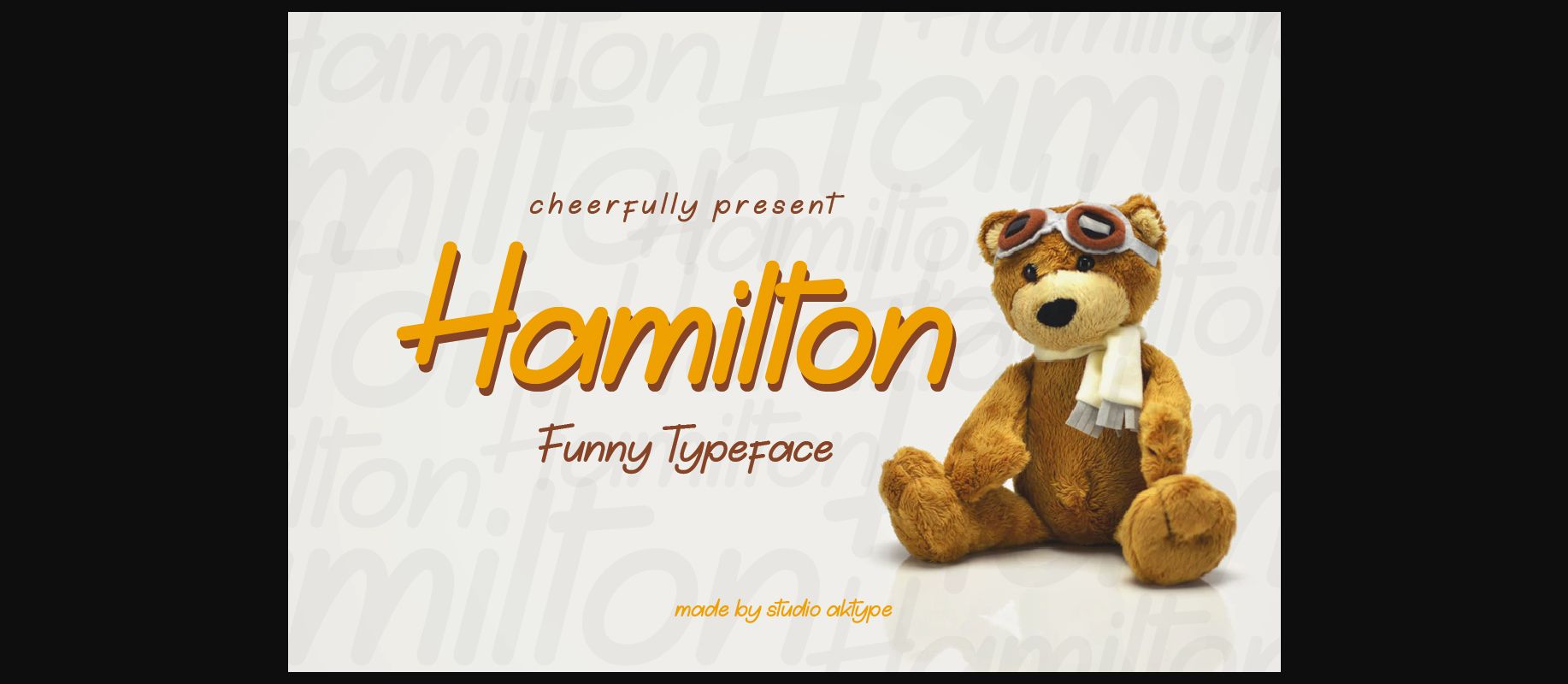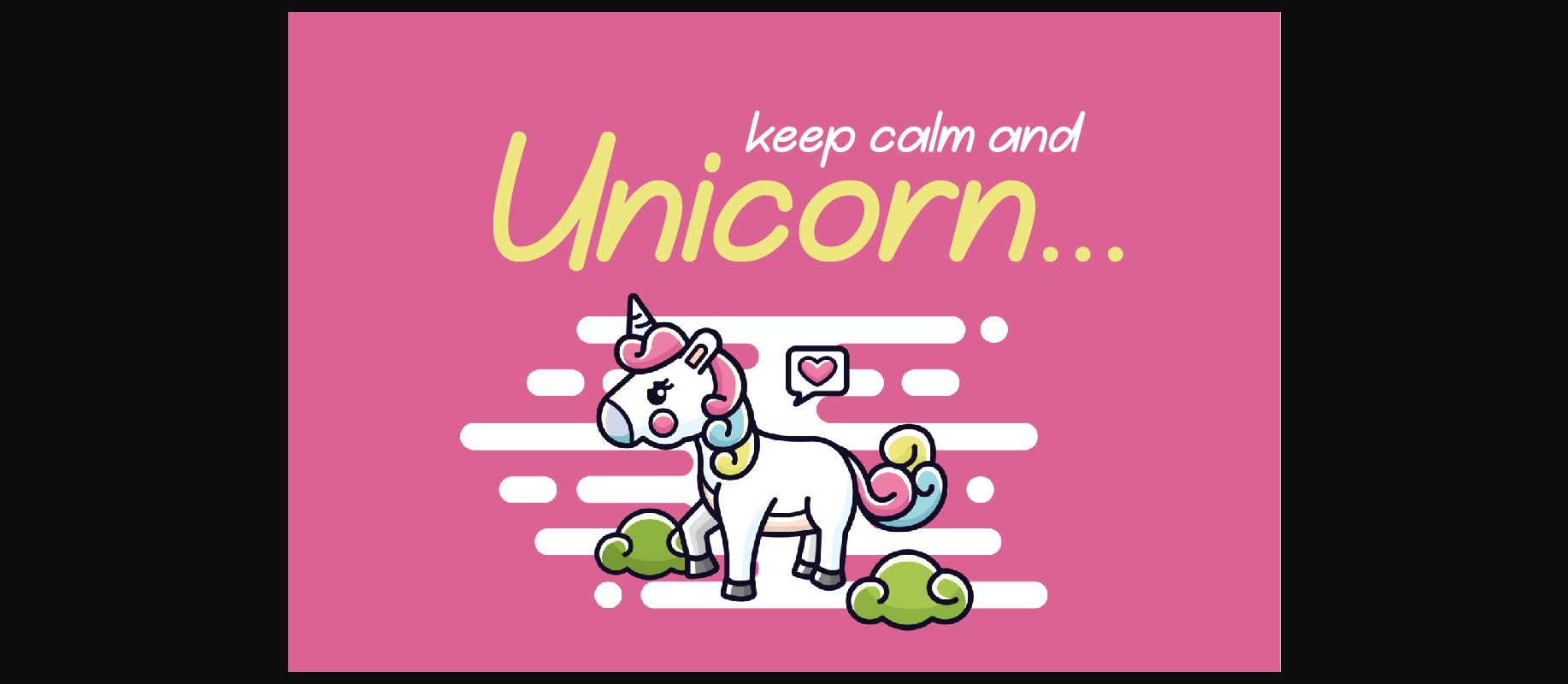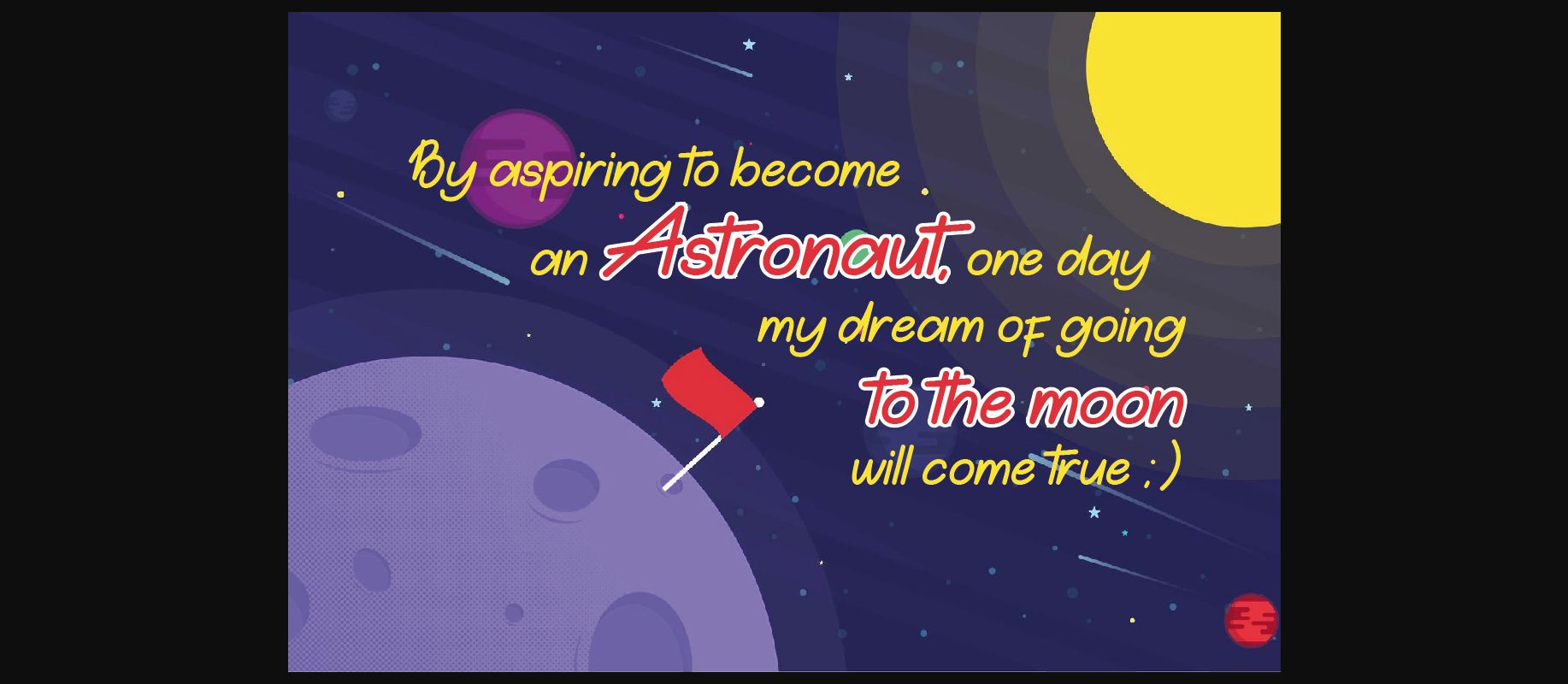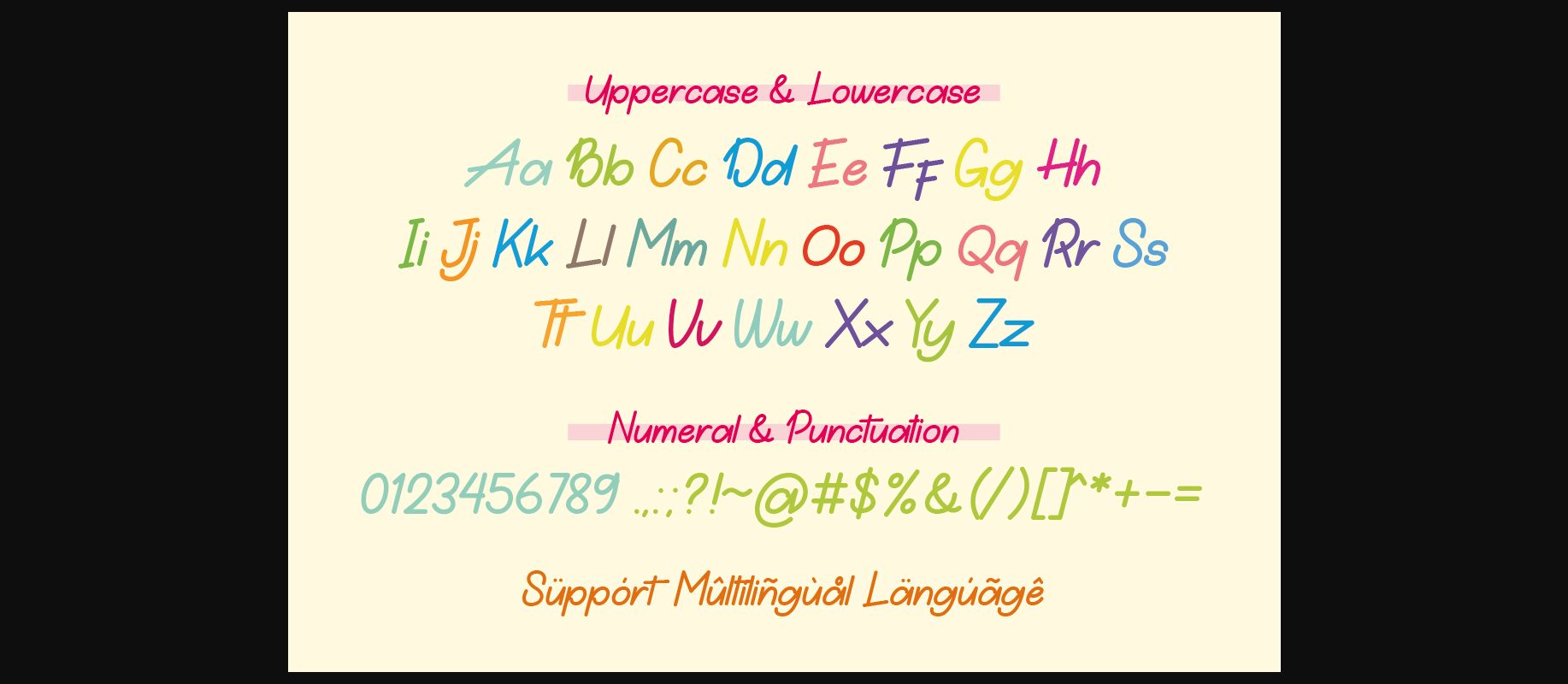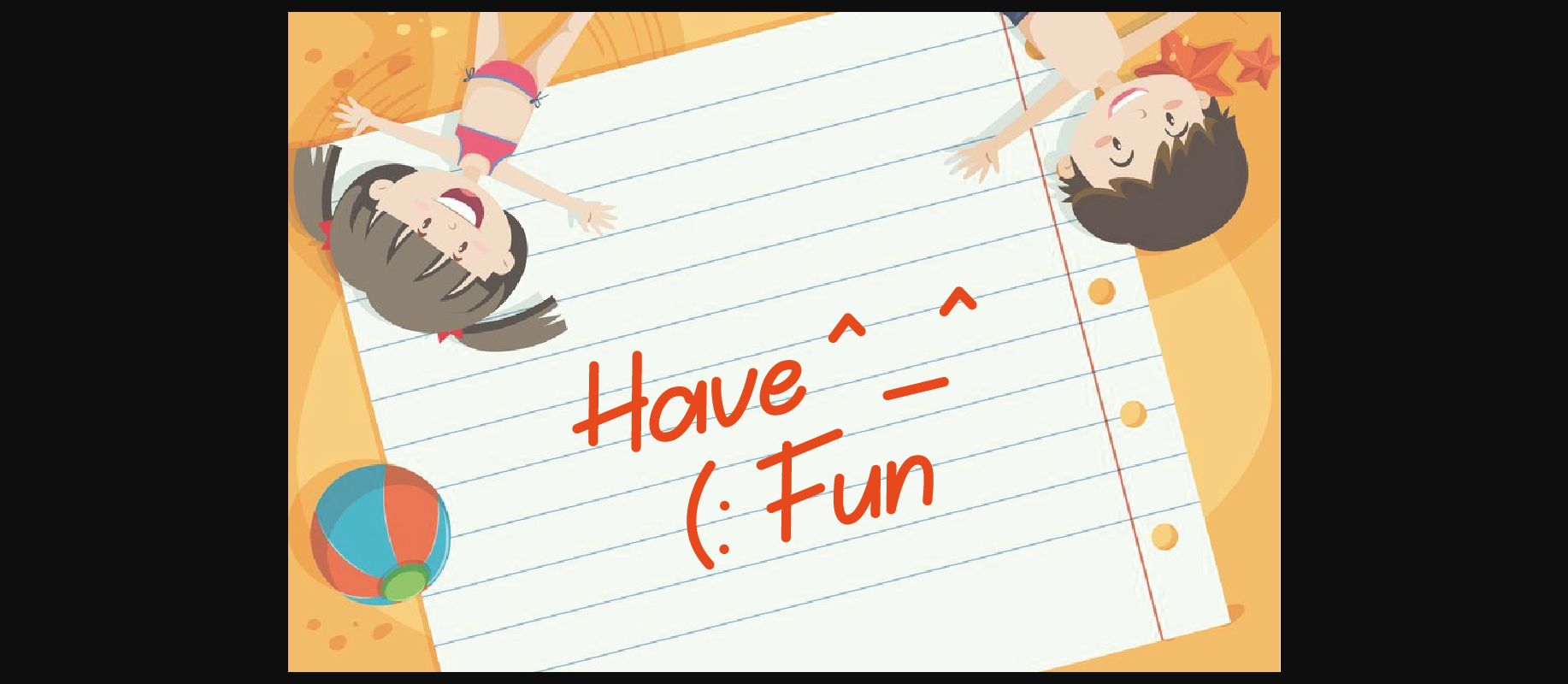
Hamilton Font
About Hamilton Font
The Hamilton is a fun and playful typeface. It’s suitable for cheerful and funny designs, children’s themes and cartoons, but can also be applied to the design of shirts, greeting cards, banners, photo books, comics, and various other cute designs.